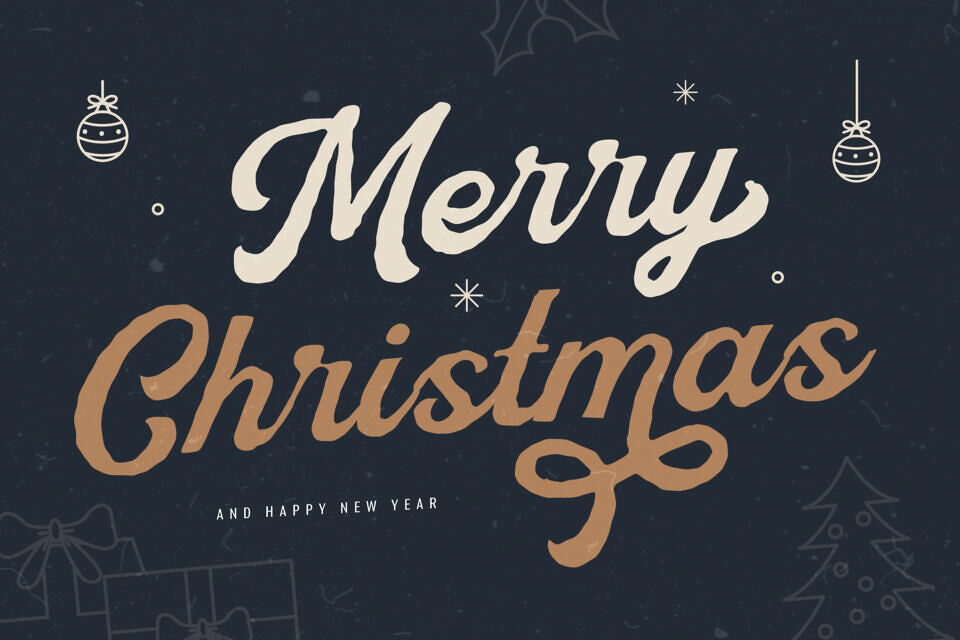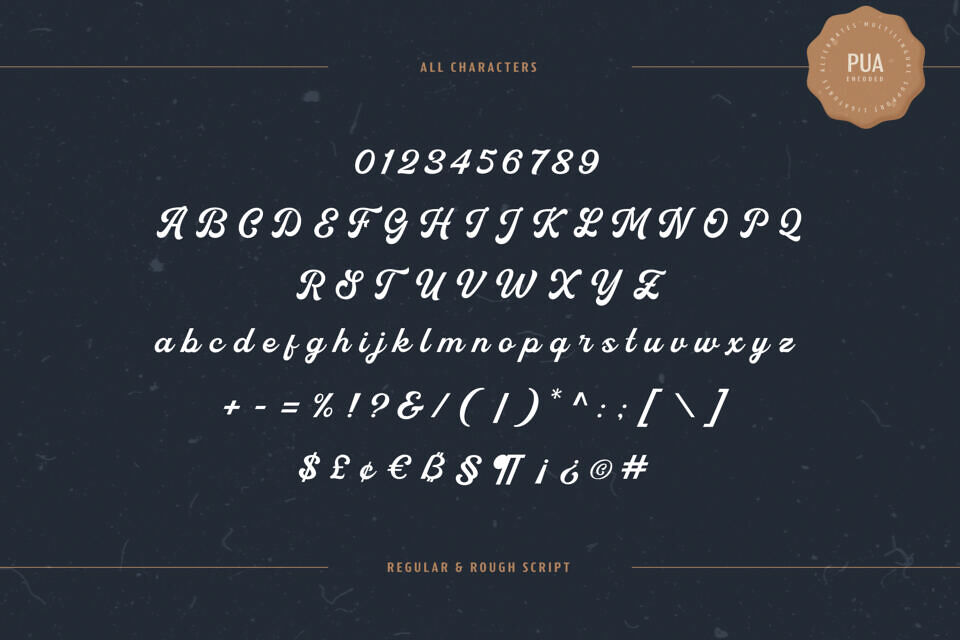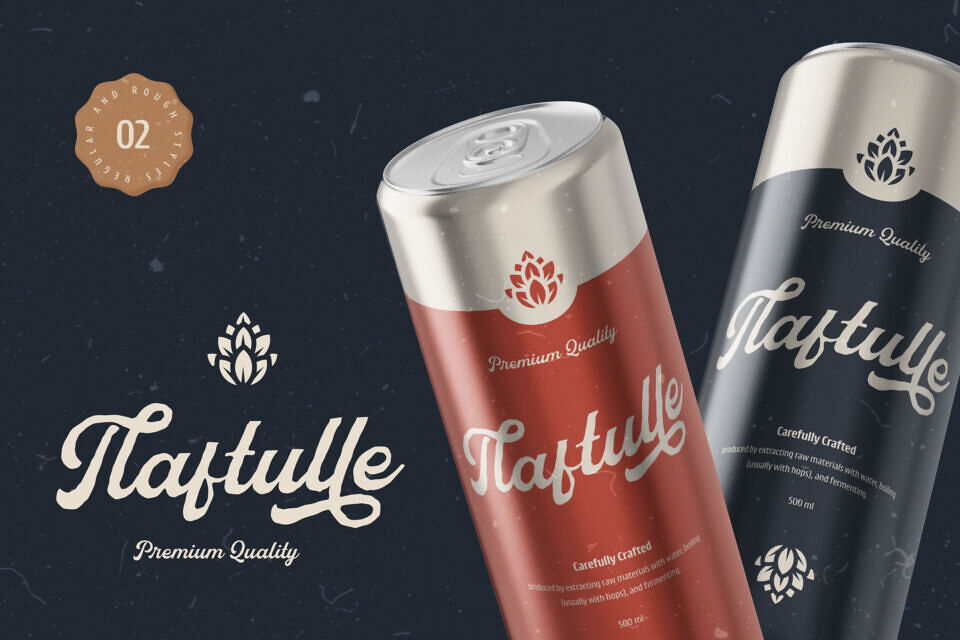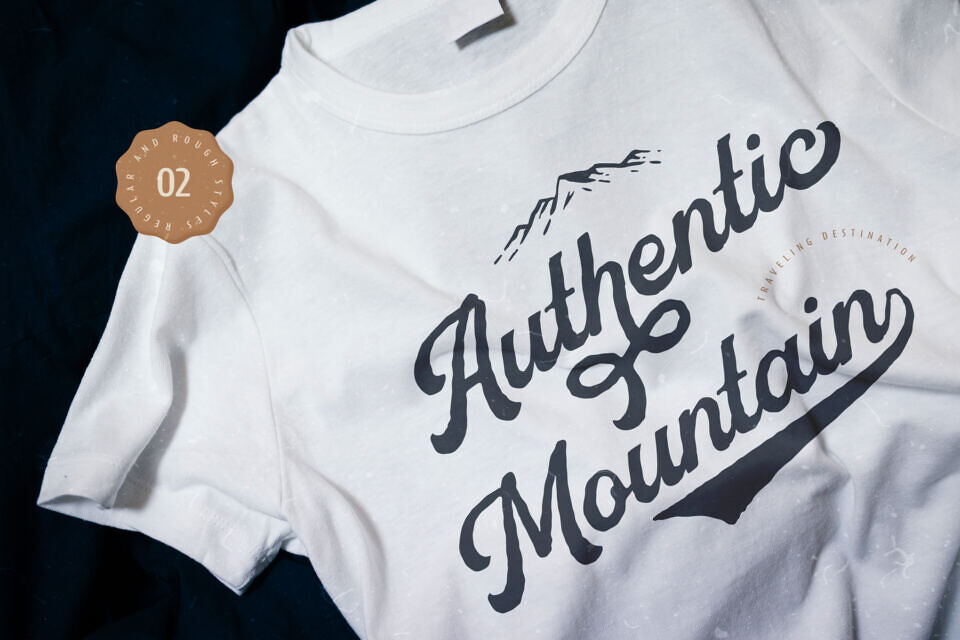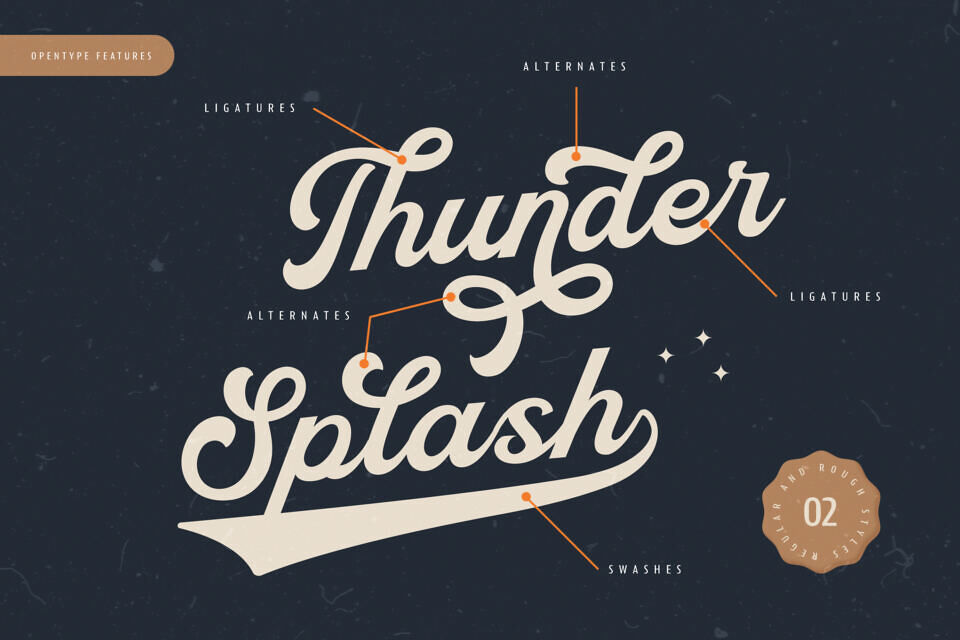
Thankfull Script Font
Introducing Thankfull, a charming vintage script typeface designed to bring retro vibes and elegant curves to your creative projects. This hand-lettered style font blends nostalgic script elements with a fresh modern twist—perfect for adding a bold, expressive look to your designs.
Whether you’re working on logos, social media quotes, packaging, stationery, or custom branding, Thankfull adds a warm, handcrafted feel that elevates your visuals with personality and charm.